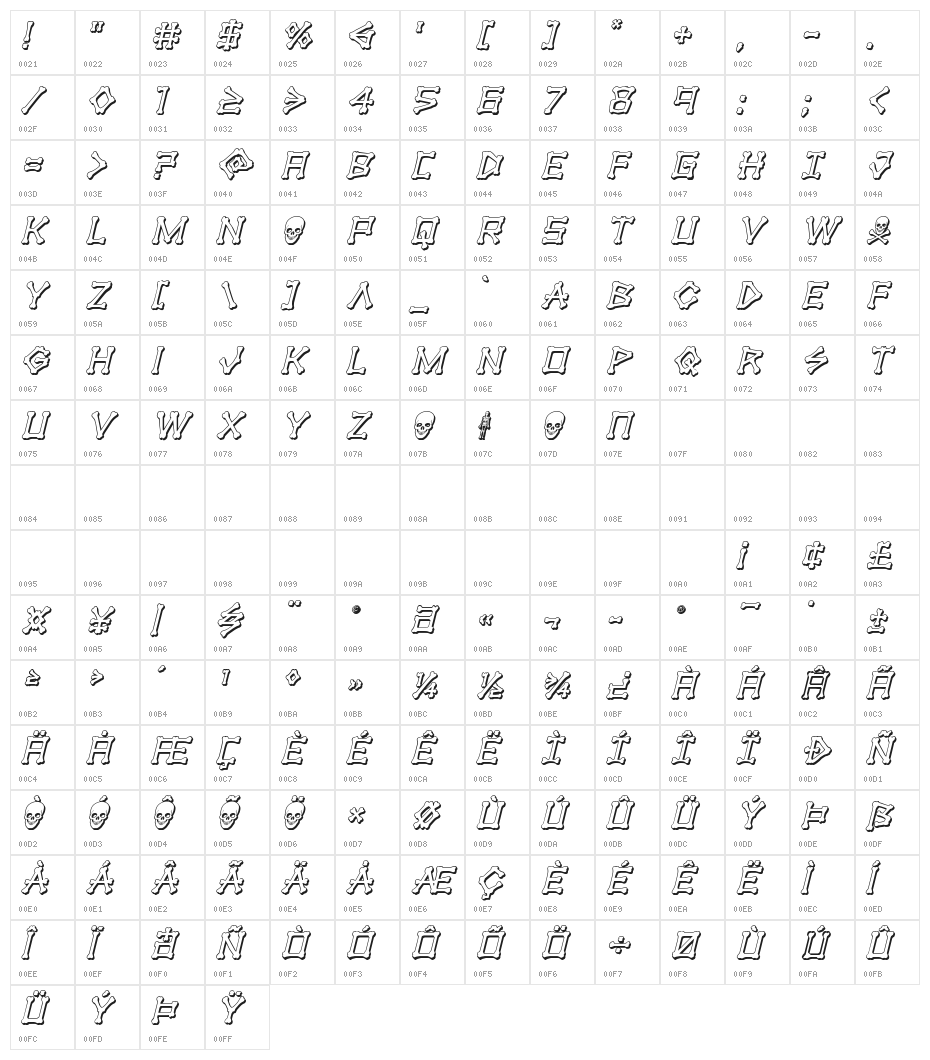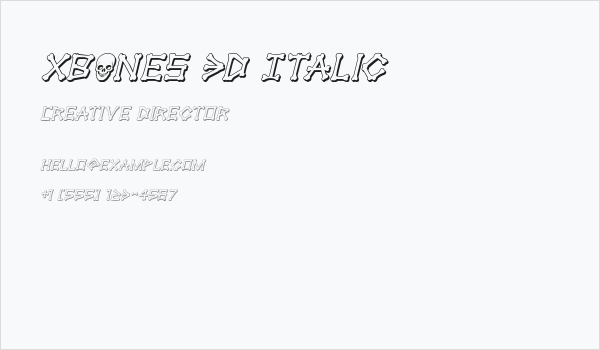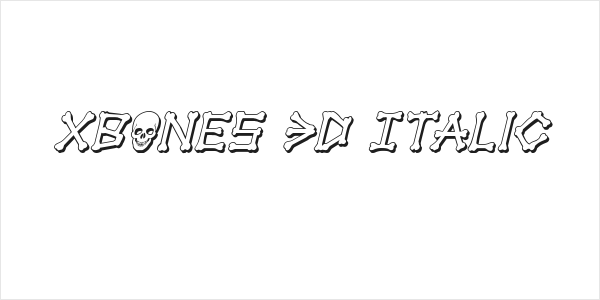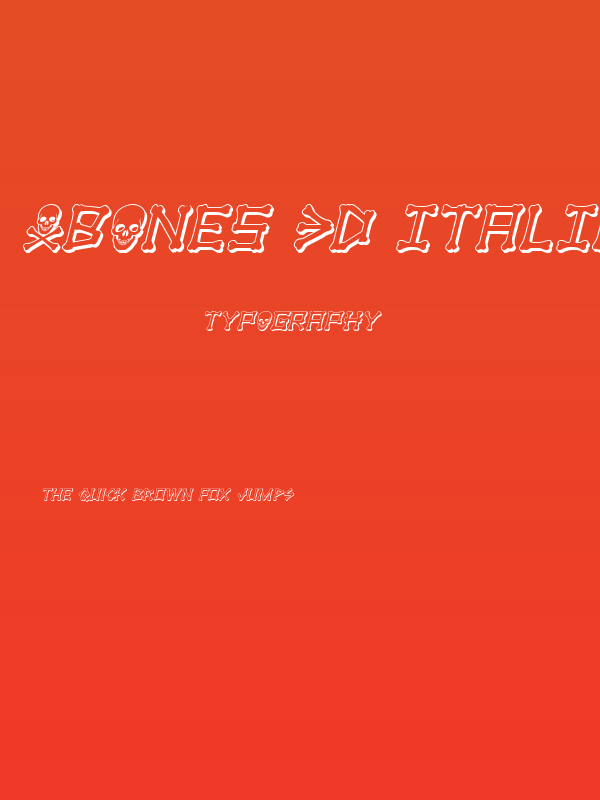
xBONES 3D Italic Font
xBONES 3D Italic Description
This font features a unique, playful design that mimics the appearance of bones, giving it a distinct and quirky character. The letters are formed with irregular, bone-like shapes, creating a skeletal effect that is both eye-catching and fun. The font includes both uppercase and lowercase letters, numbers, and a variety of special characters. Its bold and decorative style makes it suitable for thematic projects, particularly those related to Halloween or other spooky themes. The italicized slant adds a dynamic and energetic feel to the text, enhancing its visual appeal.
| Use Case | Headlines, Logos, Themed Events |
| Proposed Projects | Ideal for Halloween-themed designs, party invitations, posters, and any project requiring a spooky or quirky touch. |